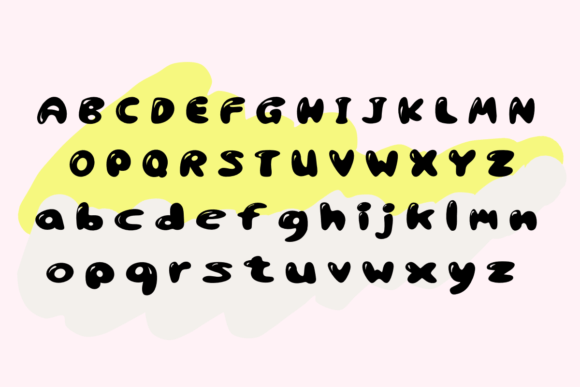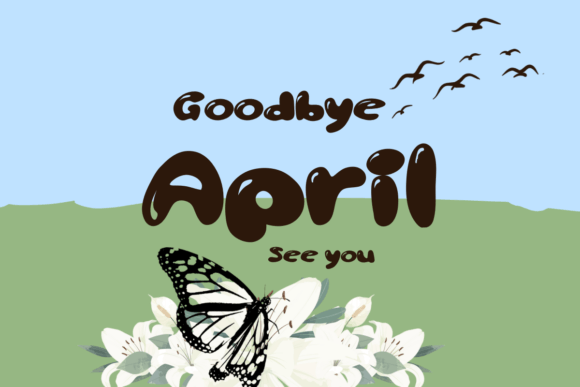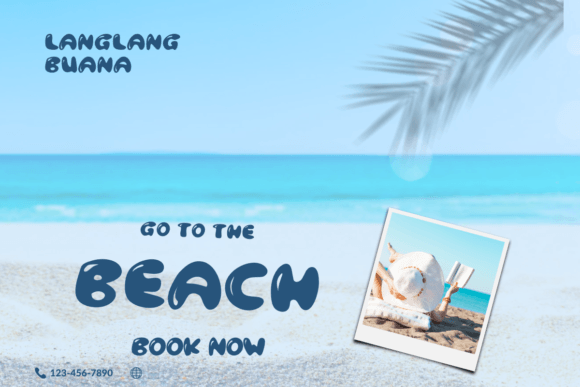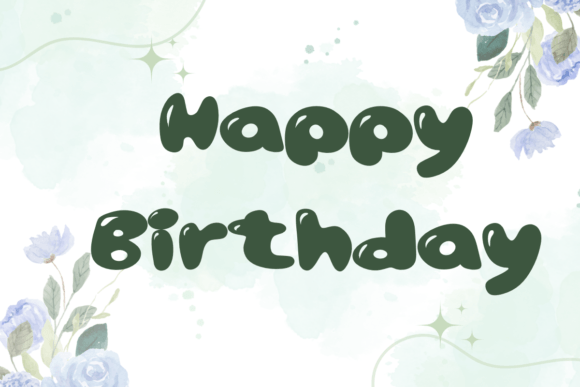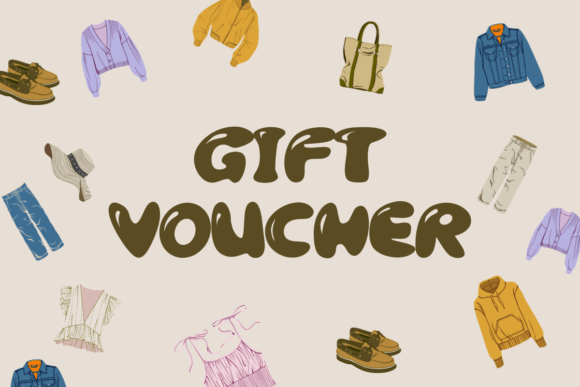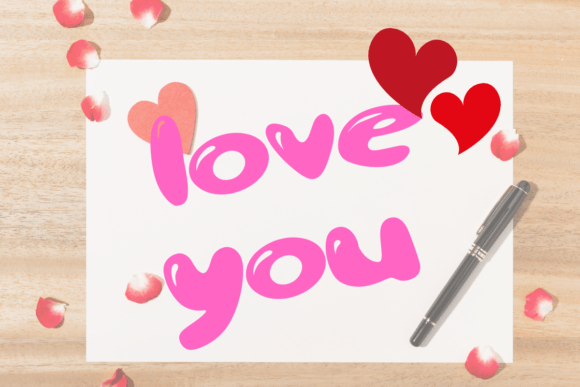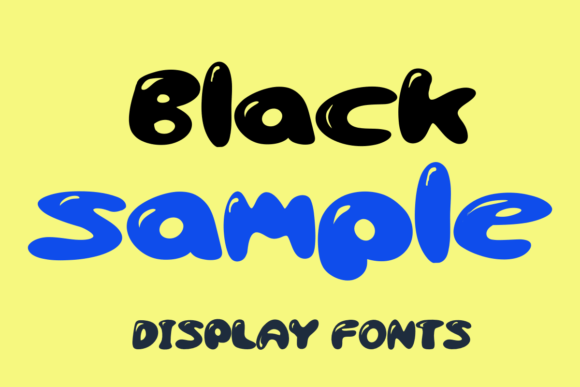
Discover the Power of Black Sample Font: Elevate Your Designs with this Versatile Display Font
Are you a designer, crafter, or DIY enthusiast looking for a font that can add a touch of elegance and sophistication to your projects? Look no further than Black Sample Font, a versatile display font that can elevate your designs to the next level. In this article, we’ll explore the features and benefits of Black Sample Font, and show you can use it to create stunning designs for various applications.
What is Black Sample Font?
Black Sample Font is a display font designed to make a statement. Its bold, sleek lines and modern aesthetic make it perfect for designs that require a touch of sophistication. Whether you’re creating a greeting card, a banner, or a social media post, Black Sample Font is sure to grab attention and leave a lasting impression.
What Can I Use Black Sample Font For?
Black Sample Font is a versatile font that can be used for a wide range of design projects, including:
• Taking notes: Add a touch of style to your notes and journals with Black Sample Font.
• Writing a diary: Make your diary entries more personal and expressive with this beautiful font.
• Creating greeting cards: Impress your friends and family with stylish and elegant greeting cards.
• Designing banners: Use Black Sample Font to create eye-catching banners for events, promotions, or announcements.
• Content creation: Add a professional touch to your blog posts, articles, or social media content.
• Mugs and water bottles: Create personalized and unique gifts for friends and family.
• Cards and invitations: Design beautiful and elegant cards and invitations for special occasions.
• Shirts and apparel: Create stylish and trendy designs for t-shirts, hoodies, and other apparel.
• Stationery: Add a touch of elegance to your stationery, including notebooks, journals, and letterheads.
• Social media posts: Make your social media posts stand out with Black Sample Font.
Why Choose Black Sample Font?
There are many reasons why Black Sample Font is a great choice for designers and crafters. Here are a few:
• Unique and stylish: Black Sample Font has a unique and stylish aesthetic that will set your designs apart from the rest.
• Versatile: This font can be used for a wide range of design projects, from personal to commercial.
• Easy to read: Despite its bold and sleek lines, Black Sample Font is easy to read, making it perfect for designs that require a clear and concise message.
Tips for Using Black Sample Font
Here are some tips for getting the most out of Black Sample Font:
• Experiment with different colors: Black Sample Font looks great in a variety of colors, so don’t be afraid to experiment and find the perfect color scheme for your design.
• Use it sparingly: While Black Sample Font is a beautiful font, it can be overwhelming if used excessively. Use it sparingly to create emphasis and add visual interest to your design.
• Pair it with other fonts: Black Sample Font pairs well with other fonts, so feel free to experiment with different font combinations to create a unique and stylish design.
Black Sample Font is a versatile and stylish display font that can elevate your designs to the next level. With its bold and sleek lines, modern aesthetic, and ease of use, it’s perfect for designers, crafters, and DIY enthusiasts looking to add a touch of sophistication to their projects. Whether you’re creating a greeting card, a banner, or a social media post, Black Sample Font is sure to impress. So why wait? Download Black Sample Font today and start creating stunning designs that will leave a lasting impression!